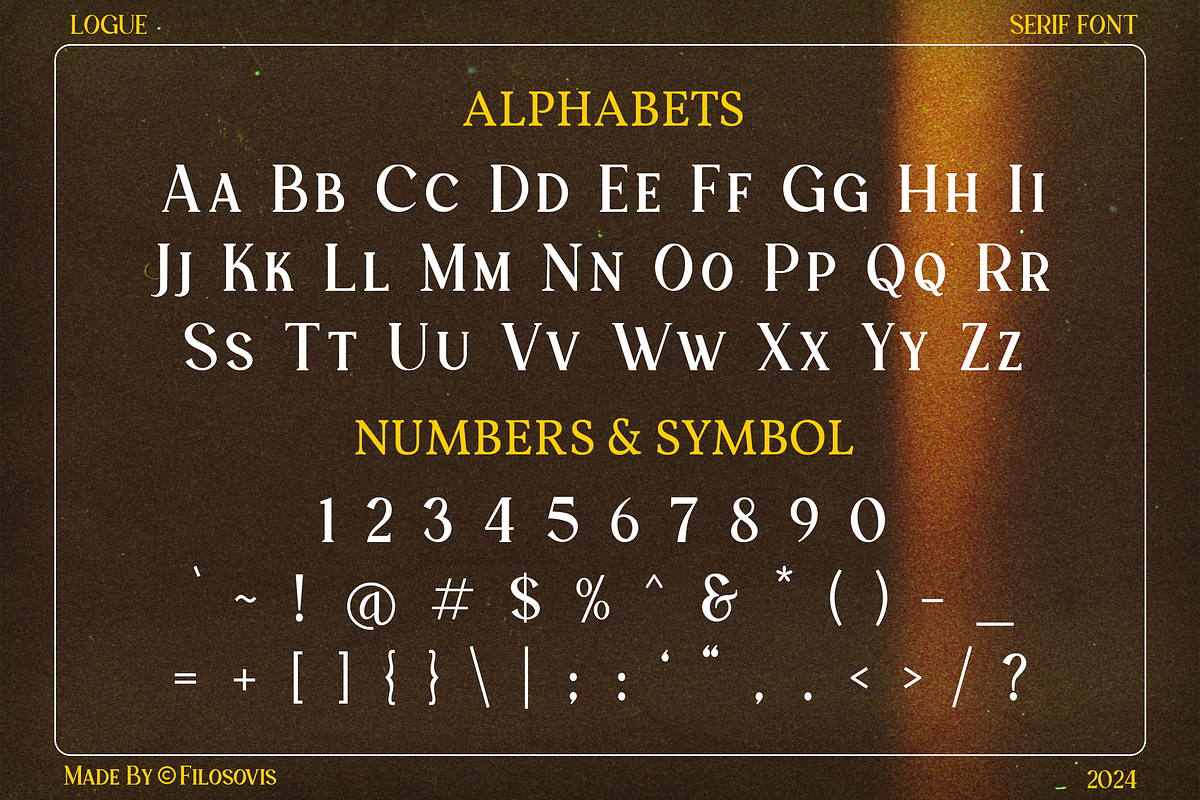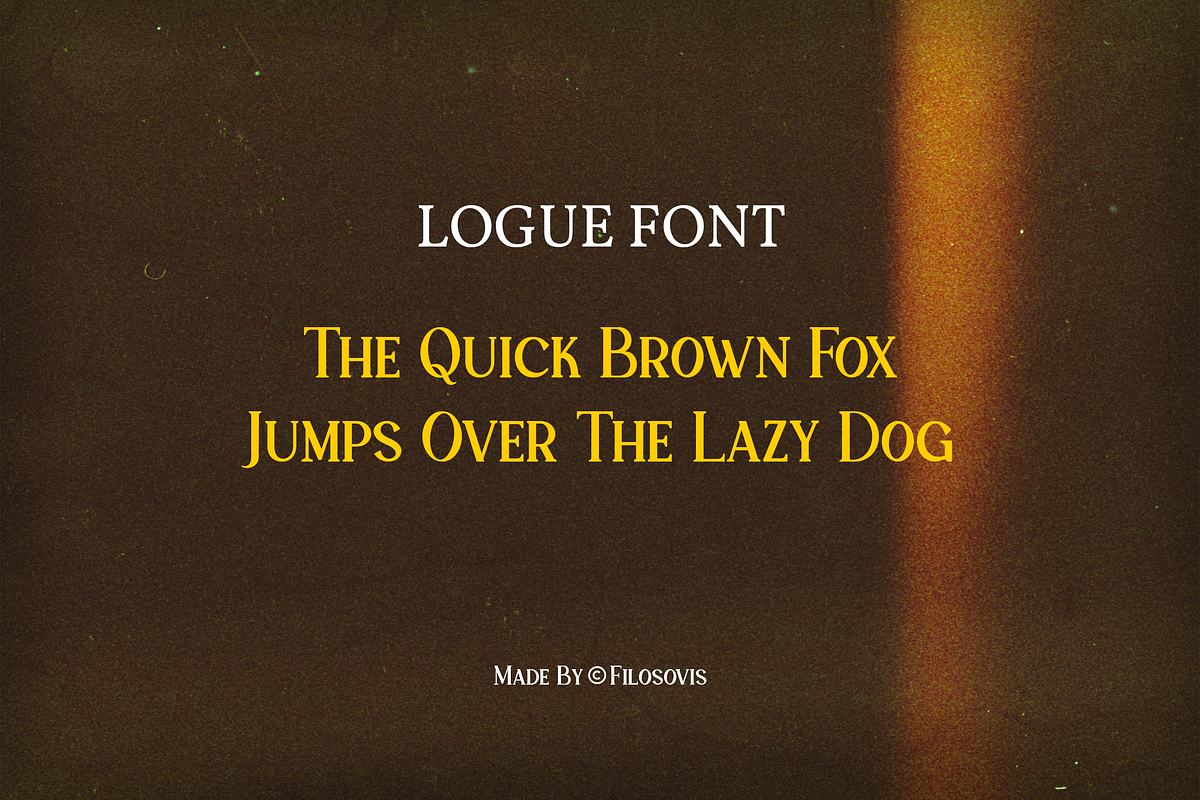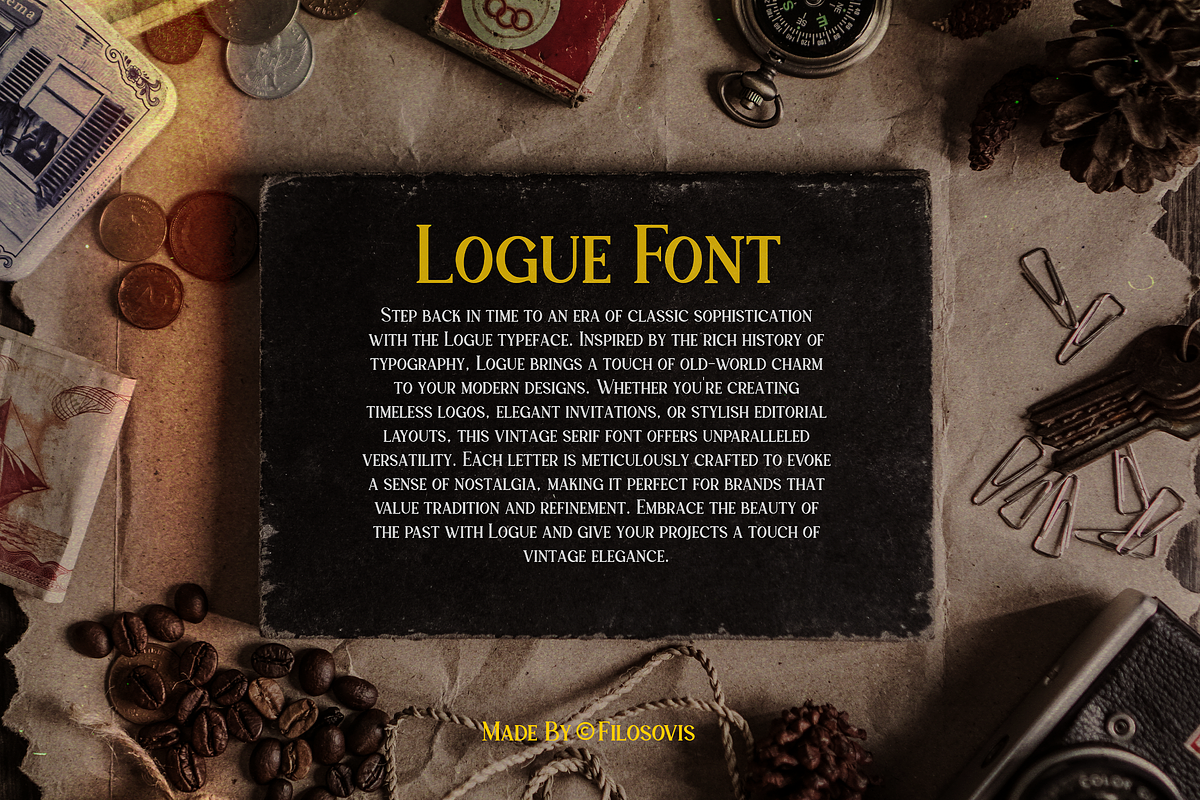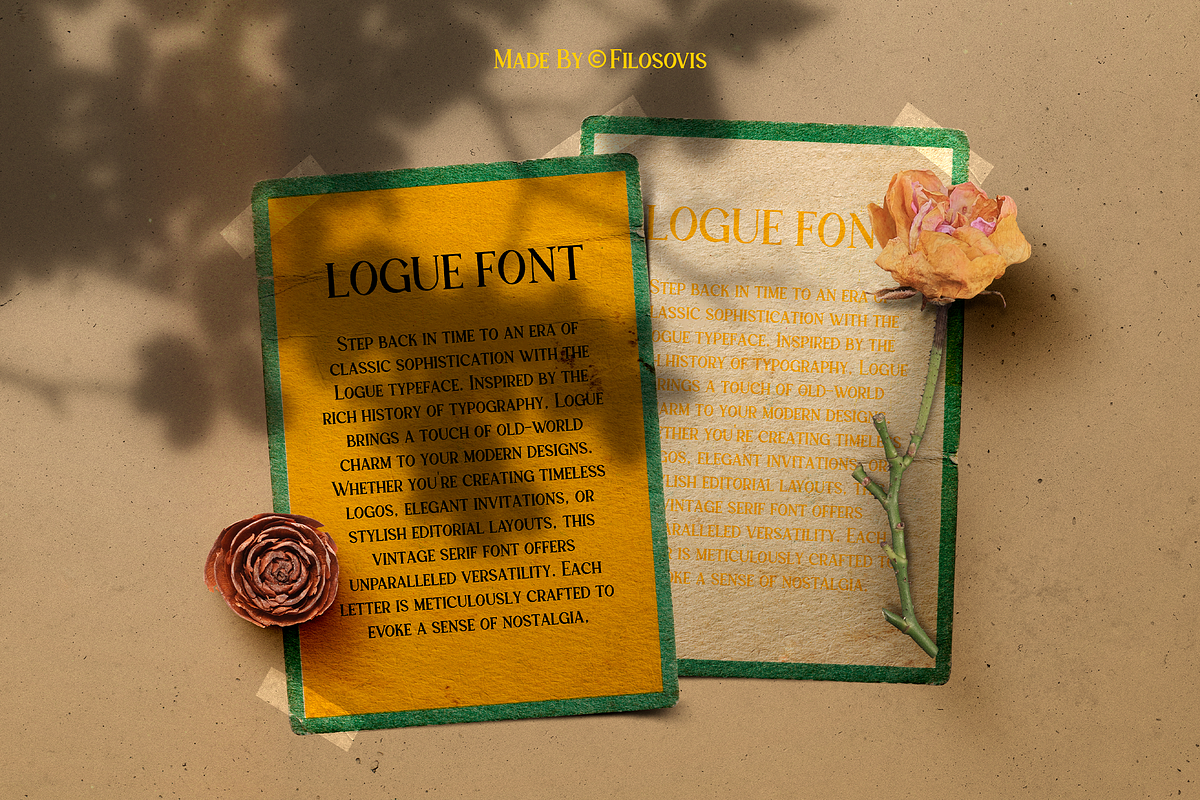
Logue | Serif Font
Logue is a Serif Font that adds a playful twist to any design. With its whimsical letterforms and unique charm, it's perfect for eye-catching headlines, vibrant posters, and playful branding projects. Infuse your creations with joy and personality with Logue!